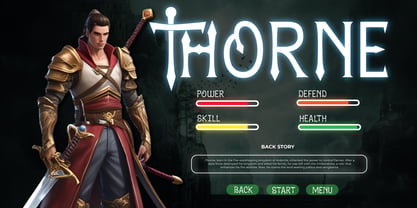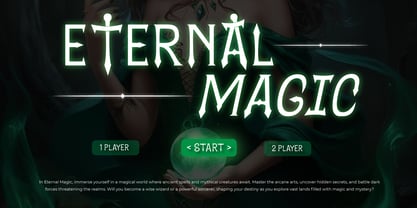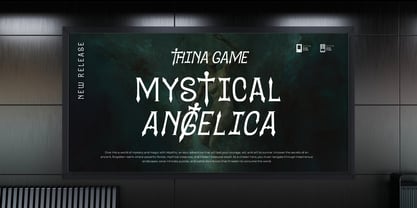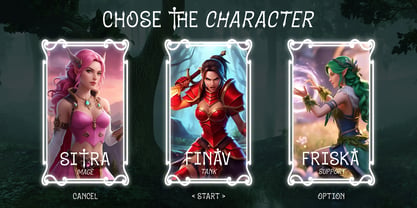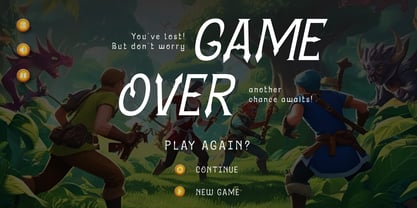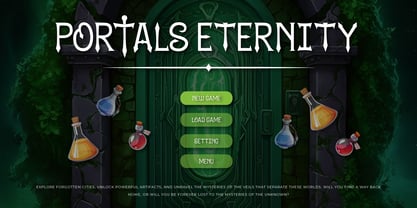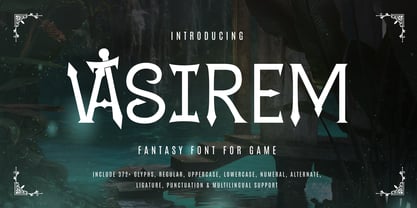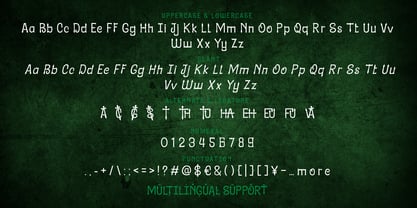
Vasirem
Vasirem is a bold and mystical fantasy display font designed to elevate your creative projects with a magical, legendary touch. Inspired by epic tales and ancient runes, Vasirem blends sharp curves and dramatic strokes that instantly transport viewers to a world of mythical creatures and heroic adventures. This font is ideal for game titles, fantasy posters, medieval branding, or anything that needs a sense of mystery and power.
Whether you’re designing an RPG game logo, a fantasy novel cover, or a board game with a legendary theme, Vasirem gives your text the grandeur it deserves. Its powerful and unique character shapes evoke ancient scripts, perfect for fantasy-driven narratives. With Vasirem, every word feels like part of a saga waiting to be told.